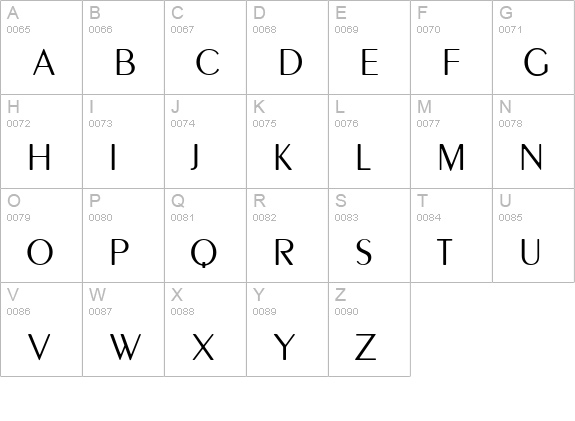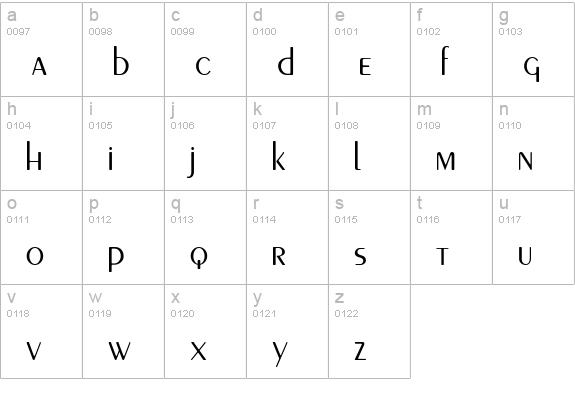
Peignot font is a timeless and elegant typeface that exudes sophistication and style. With its distinctive letterforms and clean lines, it has become a staple in the world of typography. Originally designed in the early 20th century by the legendary French designer A.M. Cassandre, Peignot font has stood the test of time and remains a favorite among designers and typographers. This versatile font is suitable for a wide range of applications, from print materials such as posters, book covers, and magazines, to digital designs like websites and logos. Its unique and artistic design adds a touch of class to any project, making it perfect for both professional and personal use. What sets Peignot font apart is not only its aesthetics but also its accessibility. It is freely available to download at FontsMarket.com, allowing designers and enthusiasts to easily access and utilize this iconic typeface. Whether you need to add a touch of elegance to your next design project or simply appreciate the beauty of typography, Peignot font is a must-have in your font library. With its wide range of weights and styles, Peignot font offers endless possibilities for creative expression. Its bold and italic variations create eye-catching headlines, while its regular weight is perfect for body text and readability. The clean lines and sharp edges of the letters give this font a modern and refined look, while still maintaining a sense of timeless elegance. Whether you are a professional designer or a typography enthusiast, Peignot font is sure to inspire and elevate your creative projects. Its versatility, accessibility, and beauty make it a valuable addition to any designer's toolkit. So go ahead and download Peignot font for free at FontsMarket.com, and unlock the endless possibilities of this iconic typeface.